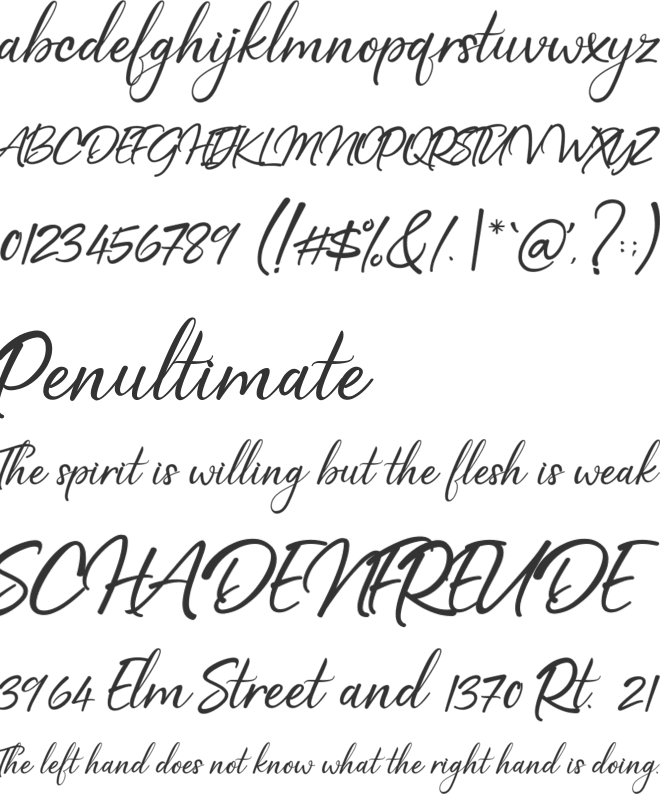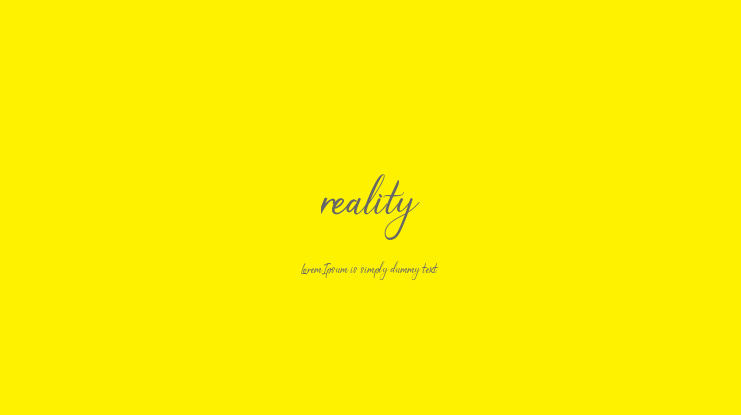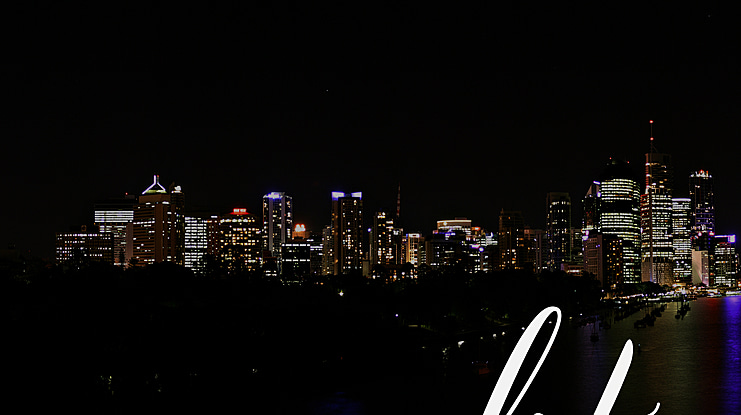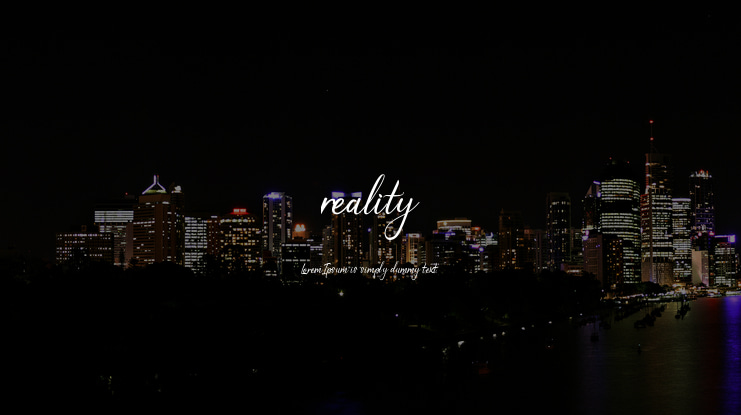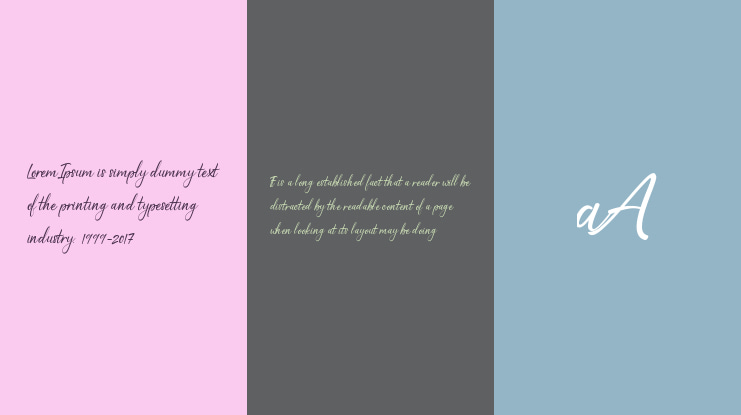
reality Font
Introducing the Modern Calligraphy Font Reality .Reality is a handwritten calligraphy with quick movement modern calligraphic font style. You can mix and match with Opentype feature: ligature stylistic alternates stylistic sets and stylisticset from ss01 to ss15 gorgeous extras from a to z and beginning and ending numerals swashes.Accessing the opentype features / glyphs: This font works best in a program that supports OpenType features, such as Adobe Indesign CS, Adobe Illustrator CS, Adobe Photoshop CC or Corel Draw 2019. ITake a look at the character map to help you along the way!